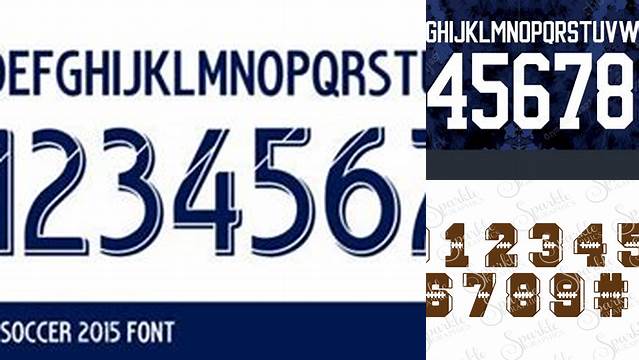
Free Football Number Font TTF Download
Are you looking to spice up your football-related designs? Finding the perfect font can make all the difference, and that's why we're diving deep into the world of football number fonts available for free download in TTF format. Whether you're designing jerseys, posters, or even a website, the right font can give your project that authentic, sporty feel. Let's explore the best options out there and how to use them!
1. Understanding Football Number Fonts
Before we jump into the downloads, let's get a grip on what makes a great football number font. These fonts are typically bold, strong, and highly legible, designed to be easily read from a distance – just like on a football jersey! They often have a dynamic, athletic look to convey energy and movement. Think about the fonts you see on professional sports jerseys; those are the kinds of fonts we're aiming for. We're talking about fonts that not only look good but also perform well in various applications, from print to digital media. The history of these fonts is rooted in practicality and aesthetics, evolving over time to meet the demands of the sport and its visual representation. So, what are the key characteristics? Boldness, legibility, and a sense of motion – these are the hallmarks of a great football number font.
5. How to Identify Quality Football Fonts
Not all fonts are created equal, and when it comes to football fonts, quality is key. You want fonts that are not only visually appealing but also highly legible and well-crafted. Look for fonts with consistent stroke widths, clean lines, and proper kerning (the spacing between letters). A good football font should be easily readable from a distance, so think about how it will look on a jersey or a large poster. Pay attention to the details – are the curves smooth? Are the angles sharp? A well-designed font will have a polished, professional feel. Don't just grab the first font you see; take the time to evaluate its quality and ensure it meets your needs. A little extra effort in font selection can make a huge difference in the final result.
9. Using Football Fonts in Design Software
Now that you've got your football fonts installed, let's talk about using them in design software. Whether you're rocking Adobe Photoshop, Illustrator, Canva, or any other design tool, the process is generally the same. Open your software, create a new project or open an existing one, and select the text tool. Then, look for the font selection menu – it's usually a dropdown list near the top of the screen. Scroll through the list until you find your newly installed football number font. Select it, and start typing! You can then adjust the size, color, and other properties of the text to fit your design. Experiment with different effects, like outlines or shadows, to make your text really pop. Remember, the right font can elevate your design, so have fun and get creative!
Benefits of Learning Typography
- Enhanced Design Skills: A solid understanding of typography can significantly improve the overall quality and impact of your designs.
- Improved Readability: Knowing how to choose and use fonts effectively enhances the readability and legibility of text.
- Effective Communication: Typography plays a crucial role in conveying the tone and message of your content.